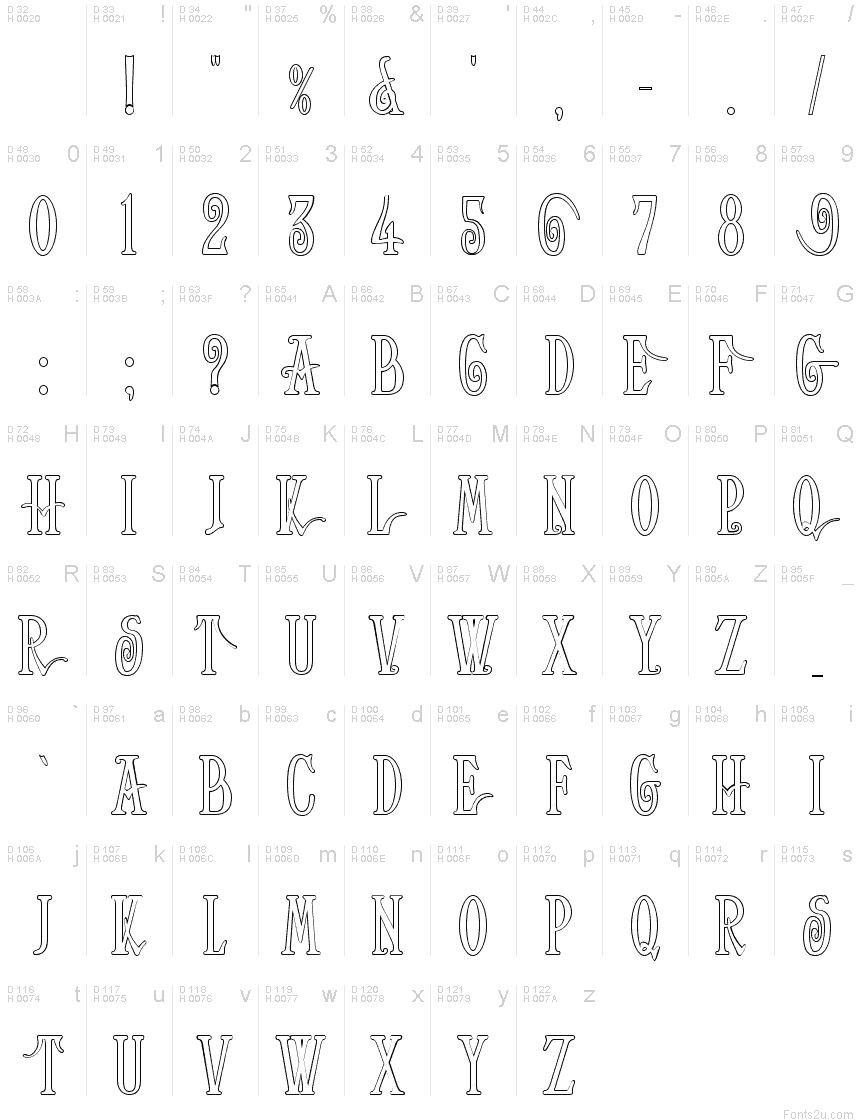
Helena-Outline
Helena-Outline font by PJL is a free retro outlined serif typeface with a wonderfully theatrical presence. Tall, elegant letterforms are traced in a single crisp contour, so text feels like it’s drawn in fine wire or inked with a drafting pen. Gentle curves sweep under the characters like stylized waves, giving the whole word a breezy, vintage boardwalk mood that’s both playful and refined.
This free font shines on posters, seaside café branding, book or album covers, boutique packaging, invitations, and statement logos where you want big, airy lettering with plenty of character. Using Helena-Outline at large sizes lets the delicate outlines and decorative curves really breathe; pair it with a clean geometric sans for small text to keep layouts readable and balanced.